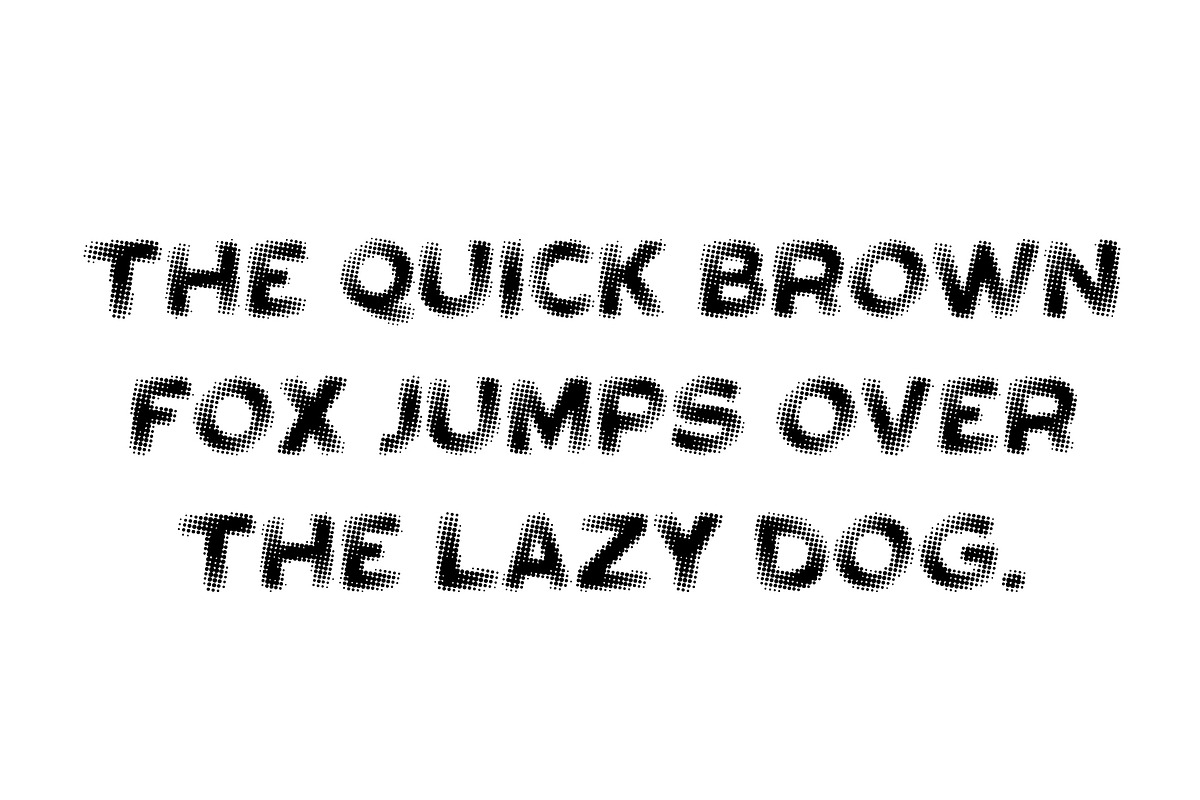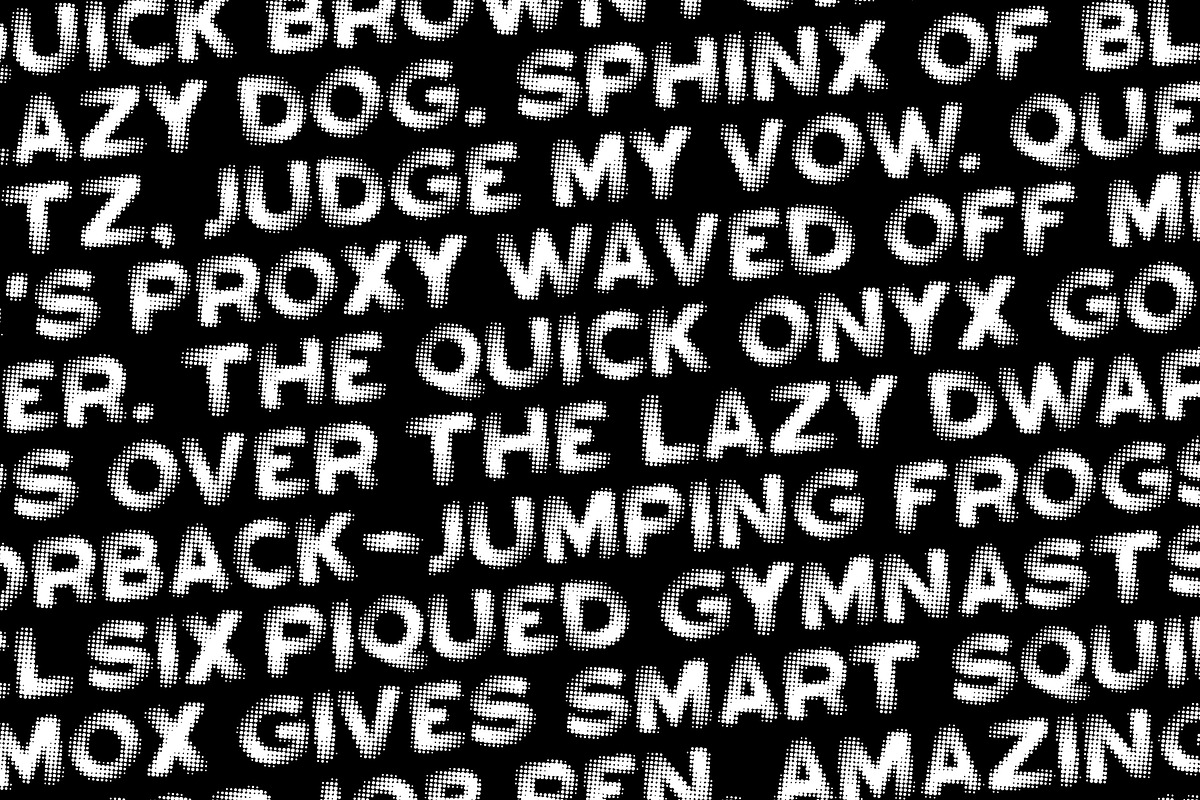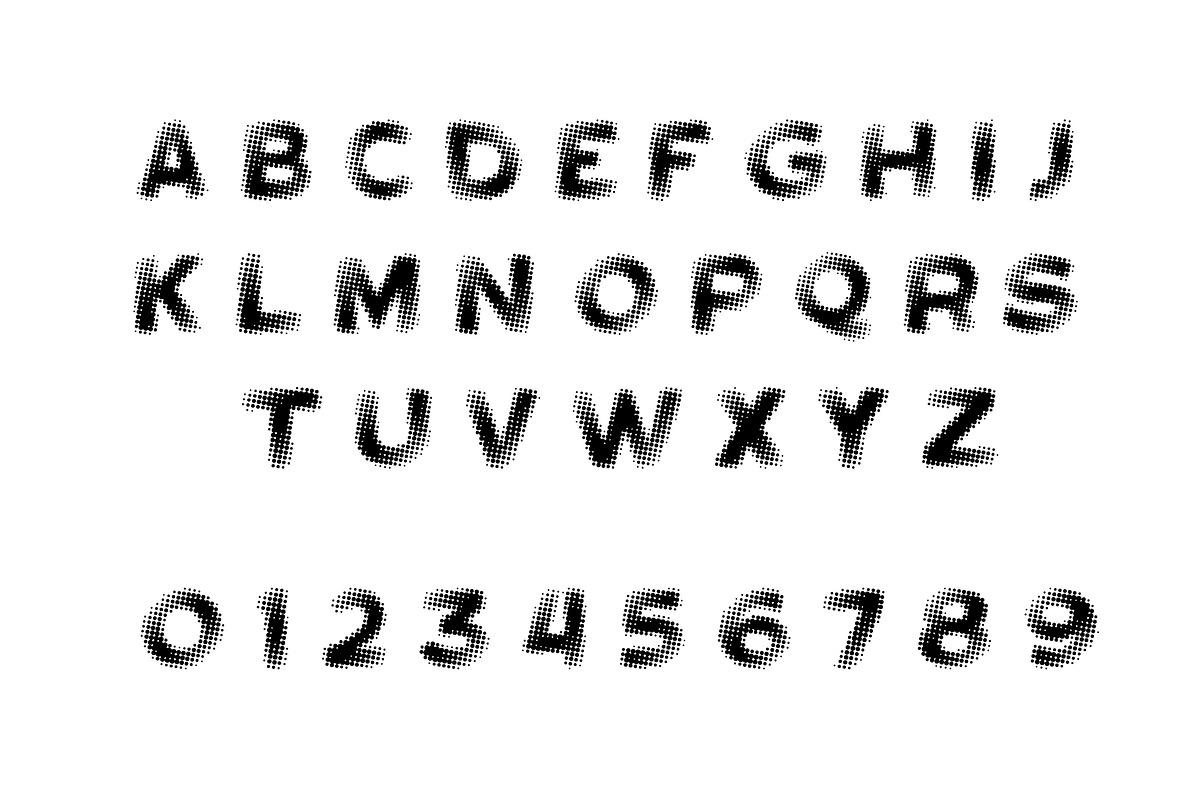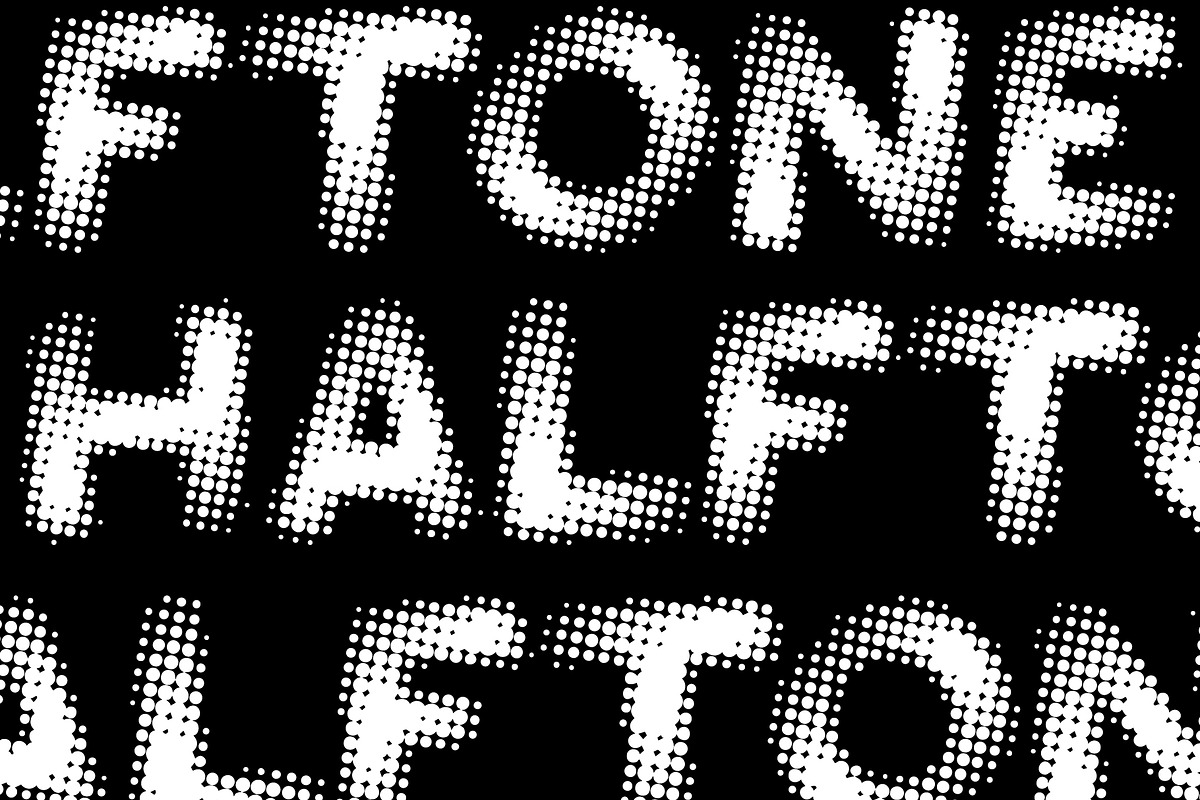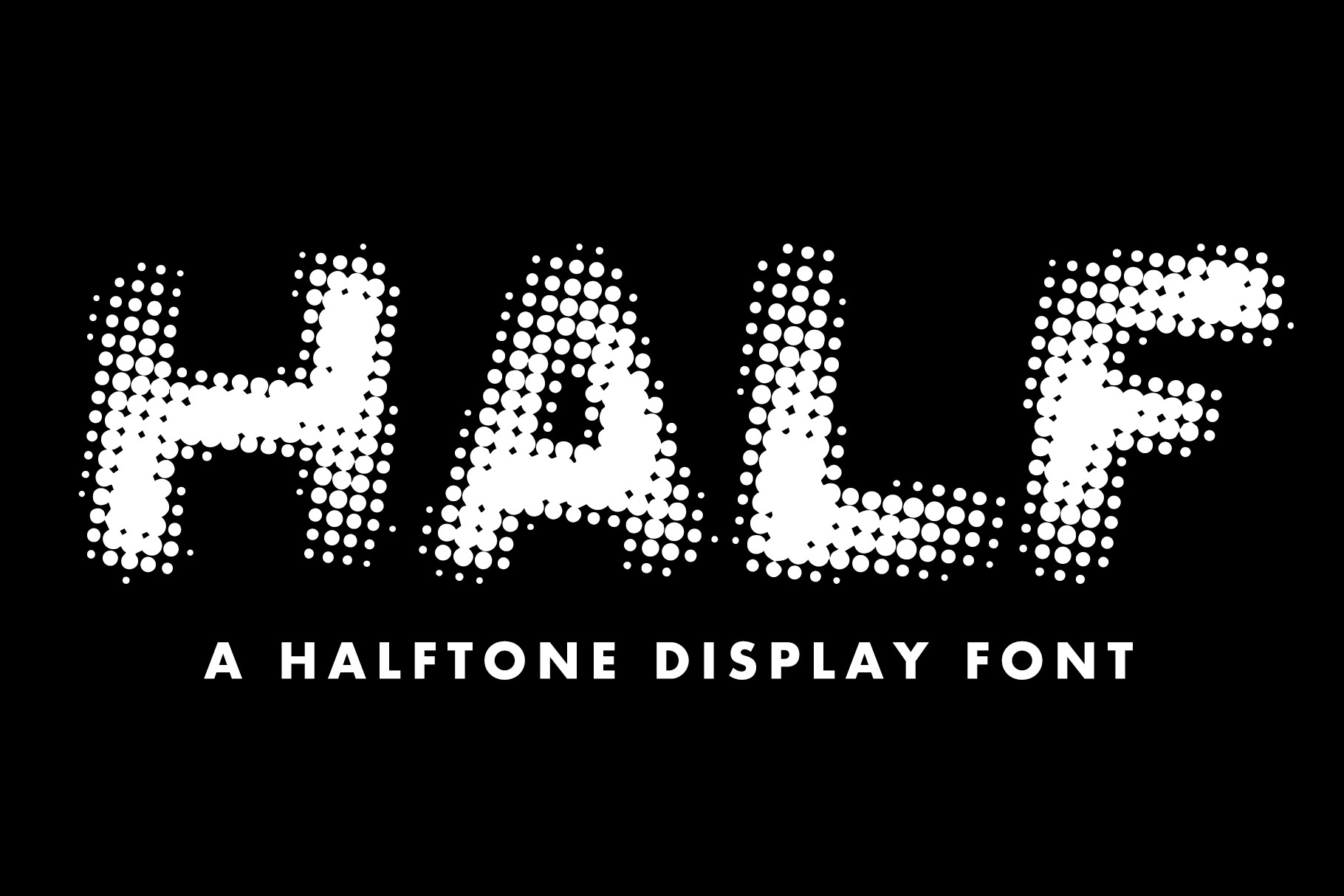
Half - A Halftone Display Font
Half – A Halftone Display Font is a bold, retro-inspired typeface that fuses comic book energy with pop art grit. Each letterform is built with a halftone fade, adding texture, depth, and movement that instantly grabs attention. Perfect for headlines, posters, album covers, or apparel, Half delivers high-impact visuals that stand out both in print and on screen.
Designed as an all-caps display font with numerals, Half is made for short phrases, logos, and statement graphics rather than body text. Pair it with a clean sans serif or minimalist geometric font for striking contrast, or let it stand alone for unapologetic, eye-catching designs.